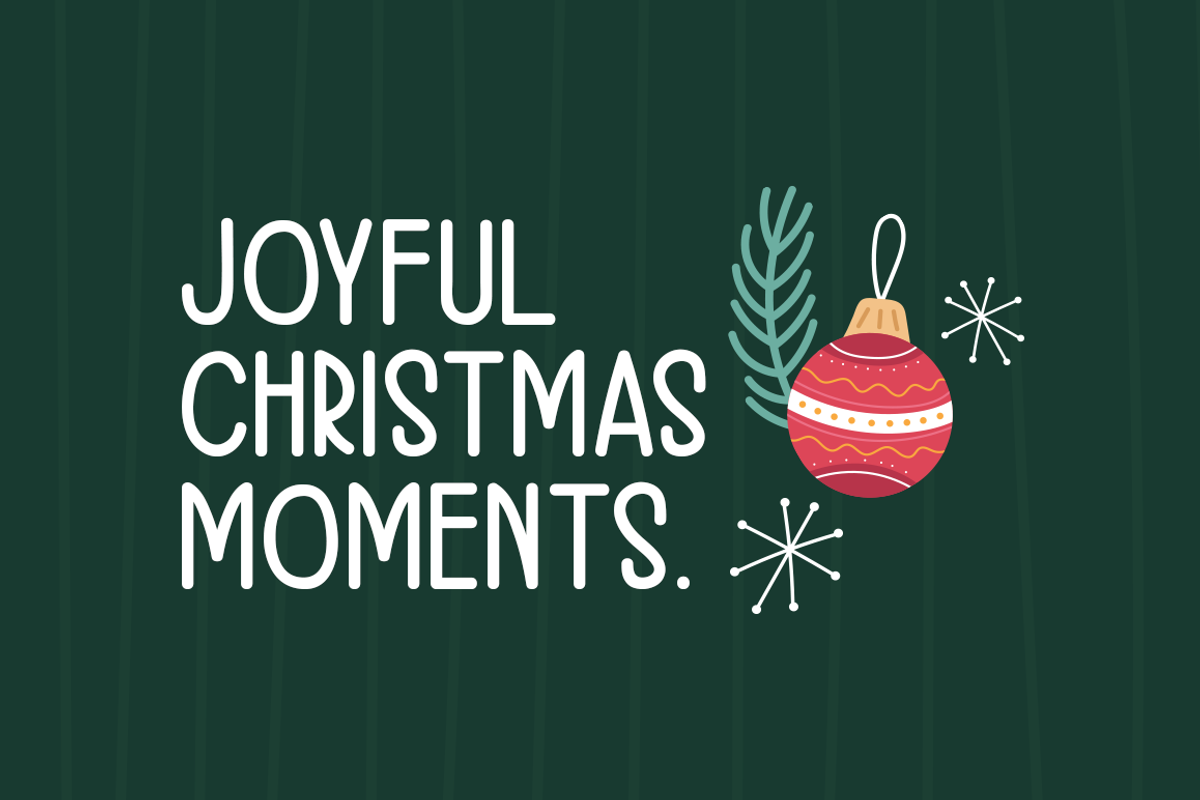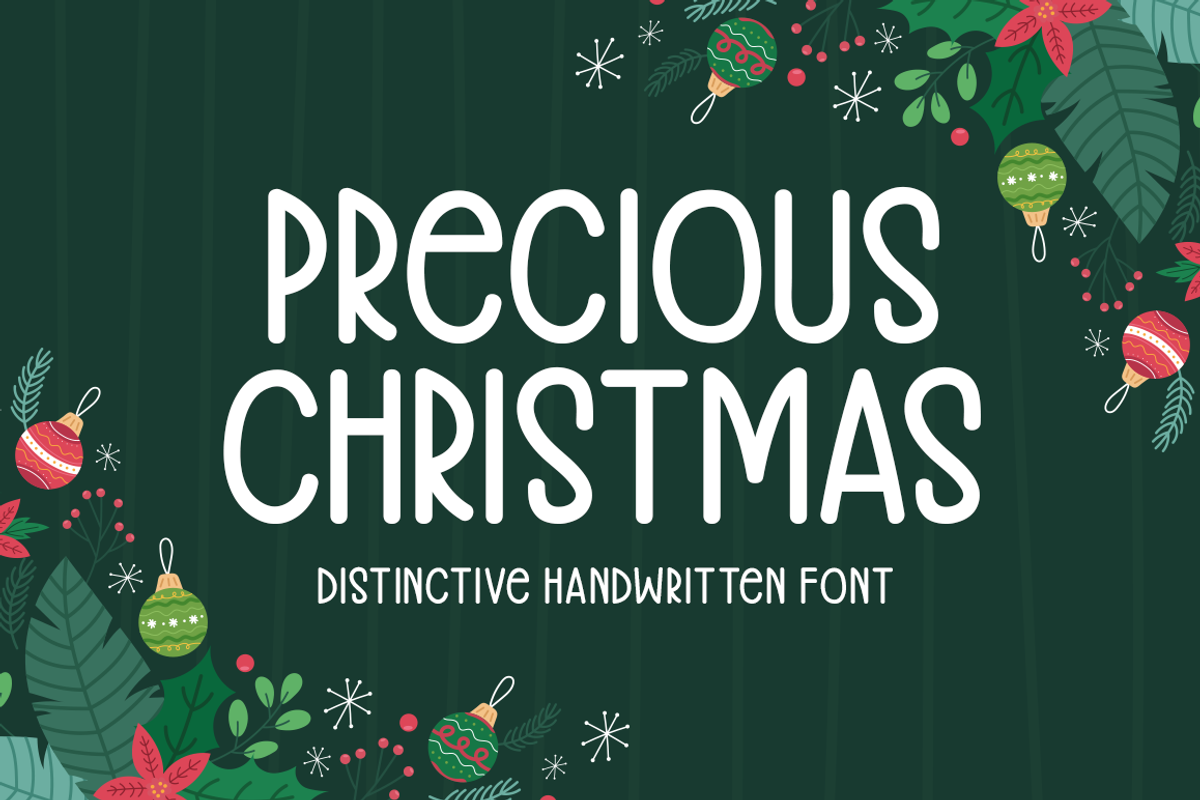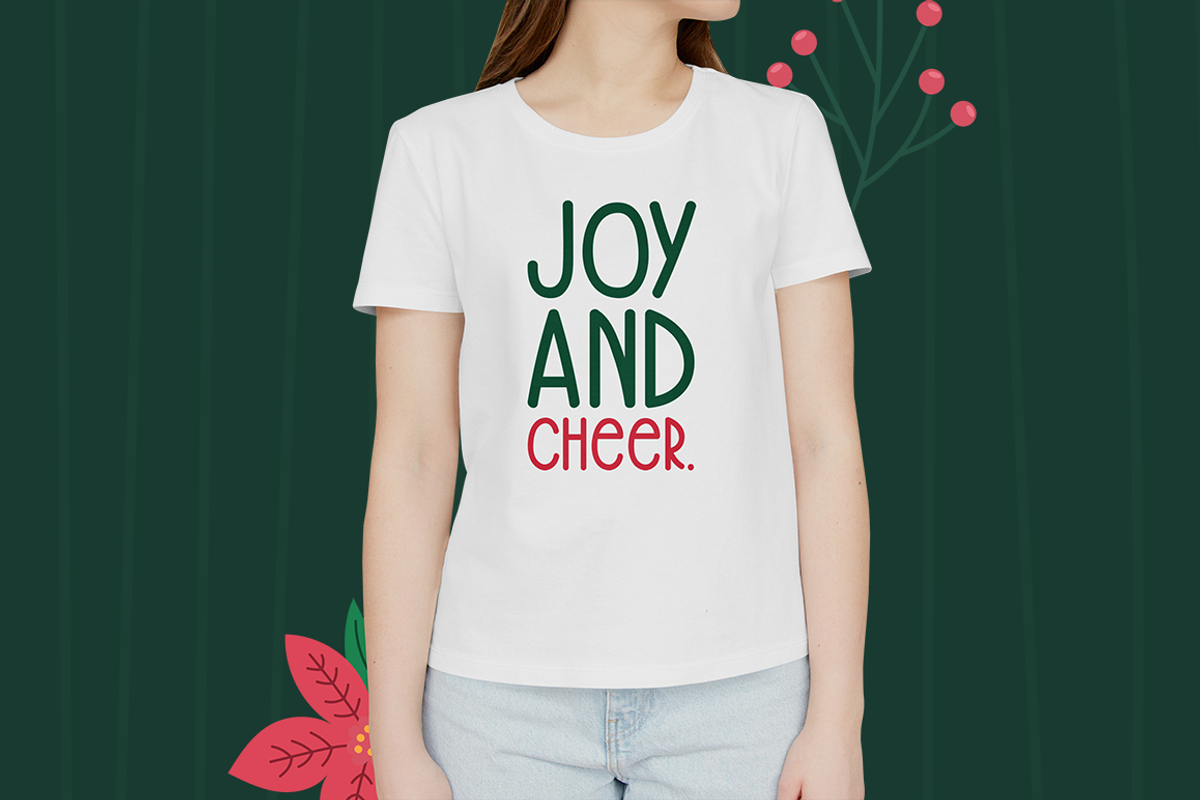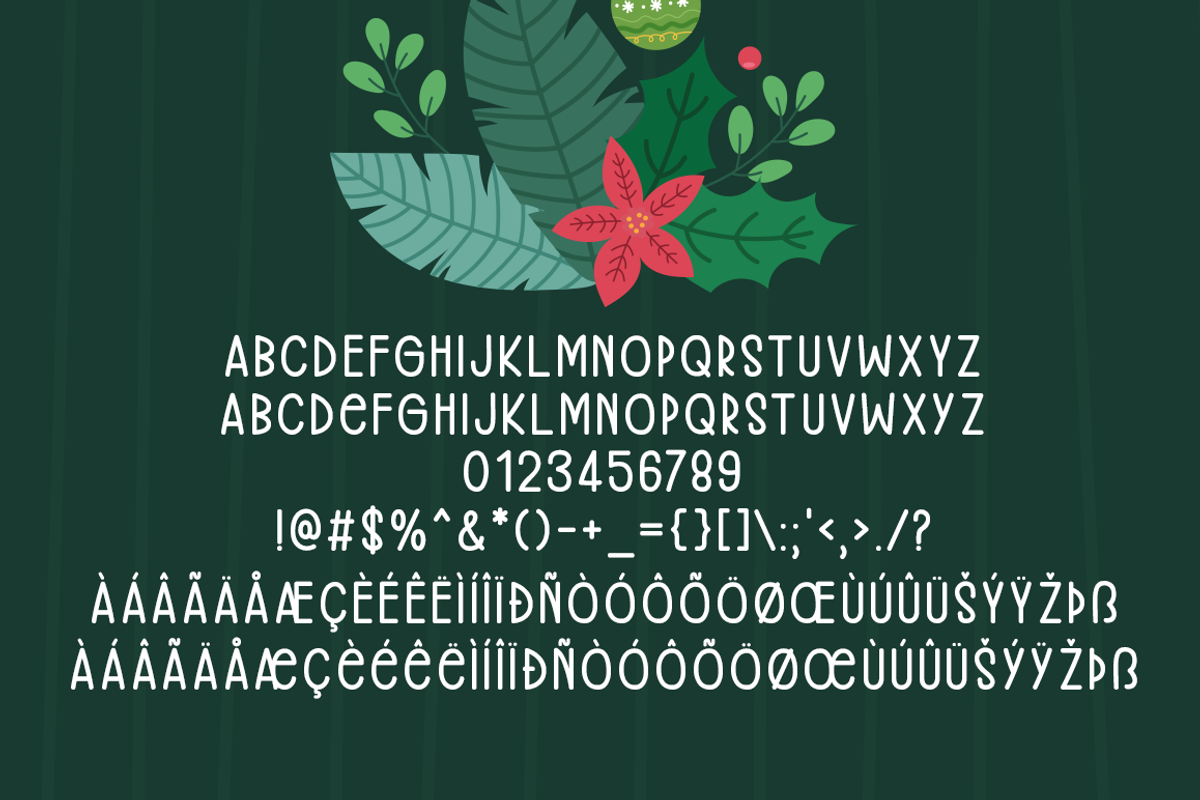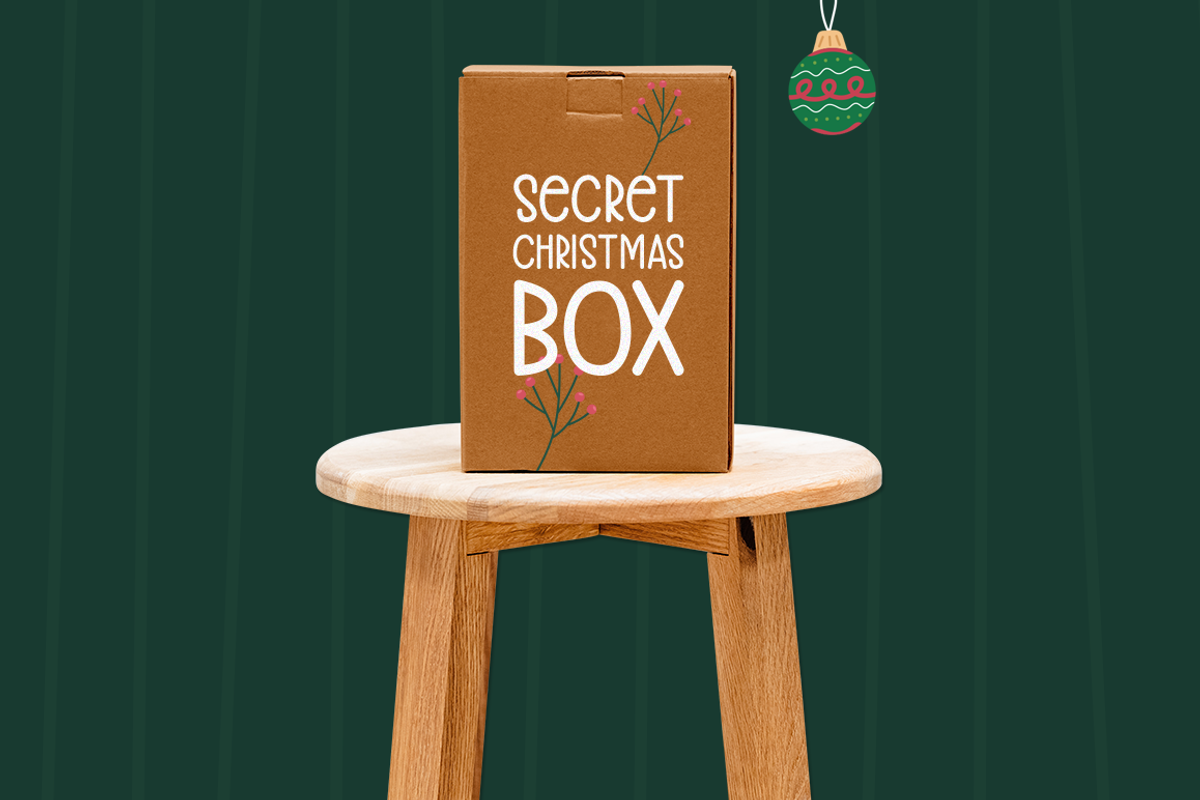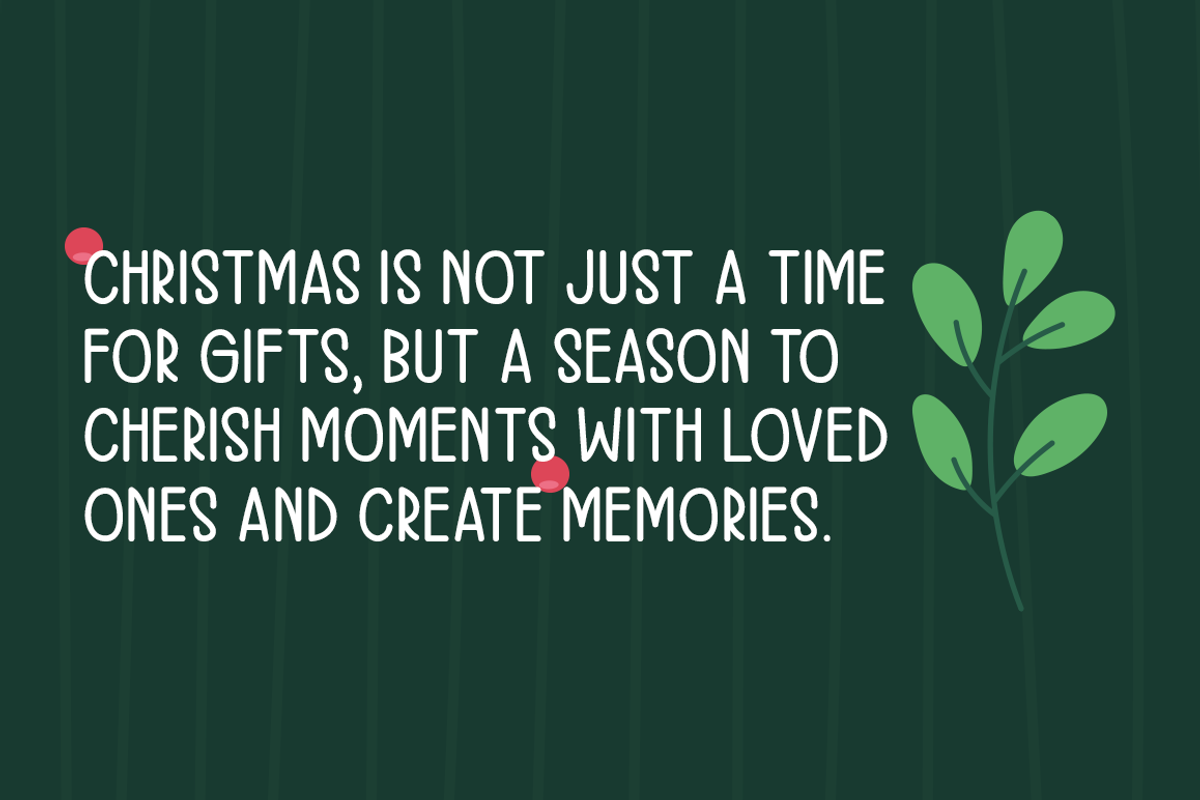
Precious Christmas Typeface
Introducing Precious Christmas!
Discover Precious Christmas, a delightful new handwritten font that adds a touch of seasonal elegance to any project. Perfectly suited for designing stylish stationery, memorable logos, and trendy t-shirts, this font also excels in print design and website headers. Whether you’re working on photo frames, engaging flyers, or eye-catching music covers, Precious Christmas brings a unique charm to every application. Its versatile nature makes it a fantastic choice for posters, image sliders, and a variety of other creative endeavors, ensuring your designs stand out with a festive touch.